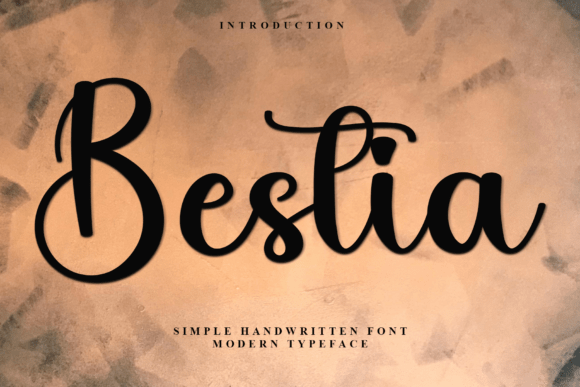
The Bestia Font: A Warm and Playful Companion for Your Design Projects
I’ll never forget the time I was working on a project for a client’s birthday party invitation. I had all the design elements ready, but something was missing – the perfect font. I scrolled through my font library, but nothing seemed quite right. That’s when I stumbled upon Bestia Font, and it instantly clicked. The round, playful strokes and charming, hand-drawn aesthetic added a fun and unique touch to the design, making it perfect for the occasion.
A Personal Review of Bestia Font
What I Love About Bestia Font
- ✨ Warm and friendly vibe that’s perfect for personal projects, invitations, and social media graphics
- ✅ Charming, hand-drawn aesthetic that adds a fun and unique touch to any design
- 🎉 Equipped with standard PUA Encoded glyphs, making it compatible with various application engines
- 👍 Easy to read and understand, even for non-designers
While Bestia Font is an excellent choice for many design projects, there are a few things to keep in mind:
- ⚠️ Limited use for formal or professional projects, as it may come across as too casual
- 🤔 May not be the best choice for body text, as it’s more suited for headings and titles
The Story Behind Bestia Font
Bestia Font was designed with the intention of creating a warm and friendly font that would add a personal touch to any design project. The designer, inspired by the beauty of hand-drawn typography, crafted Bestia Font to be a versatile and approachable font that would be perfect for a wide range of applications. From invitations and social media graphics to personal projects and crafts, Bestia Font is designed to bring a smile to the reader’s face.
Q: Is Bestia Font suitable for body text?
A: While Bestia Font is a beautiful font, it’s more suited for headings and titles. For body text, you may want to consider a font that’s easier to read and more suitable for long blocks of text.